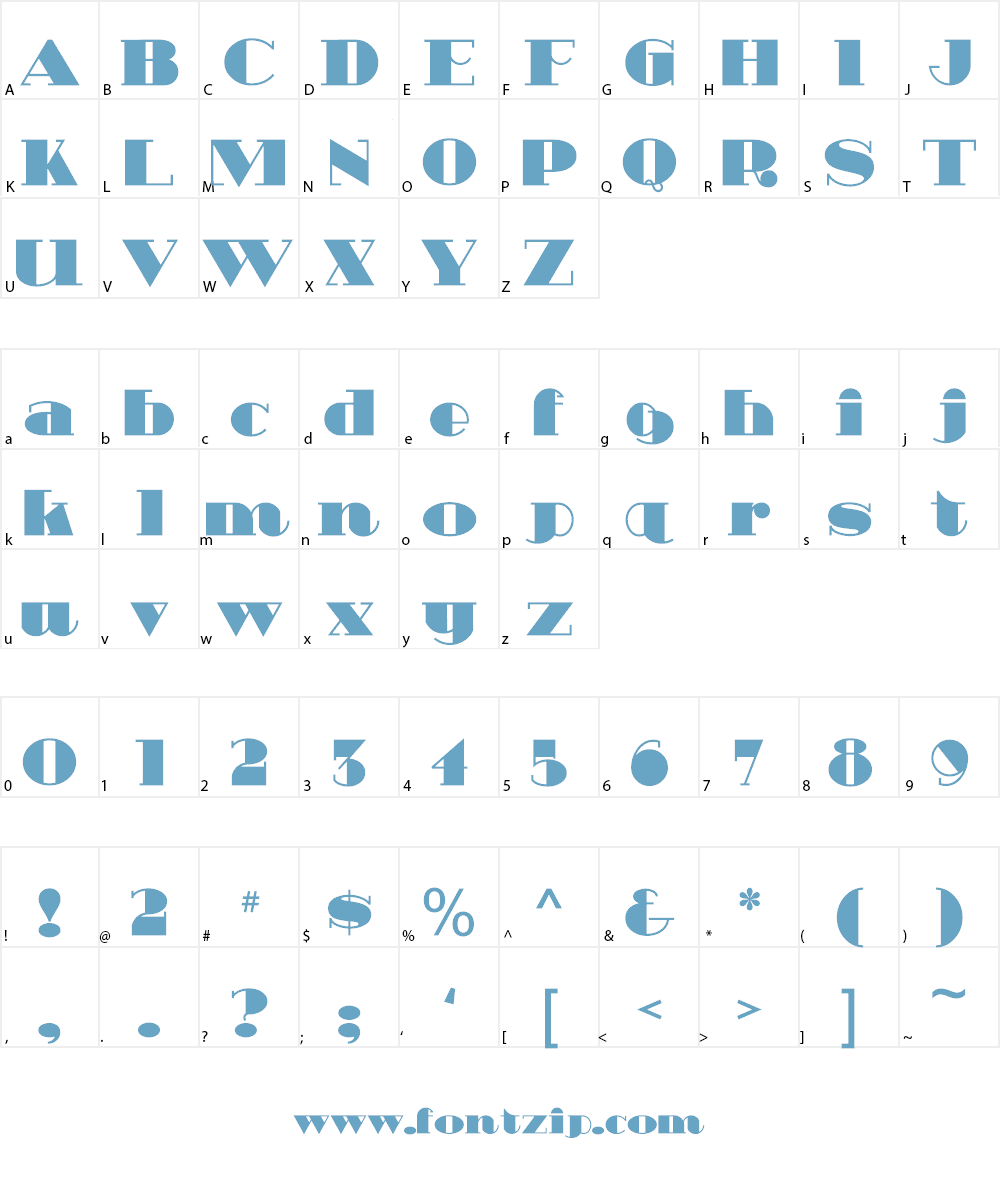
Here’s another font based on the work of bizarro lettering artist Alphonse E. Tripp, active in the 20s and 30s. A fine, fat, in-your-kinda-face with some really quirky characters. The original had inlines and a lot of fussy decoration; this version is cleaner, leaner and meaner, but in a nice kind of way.